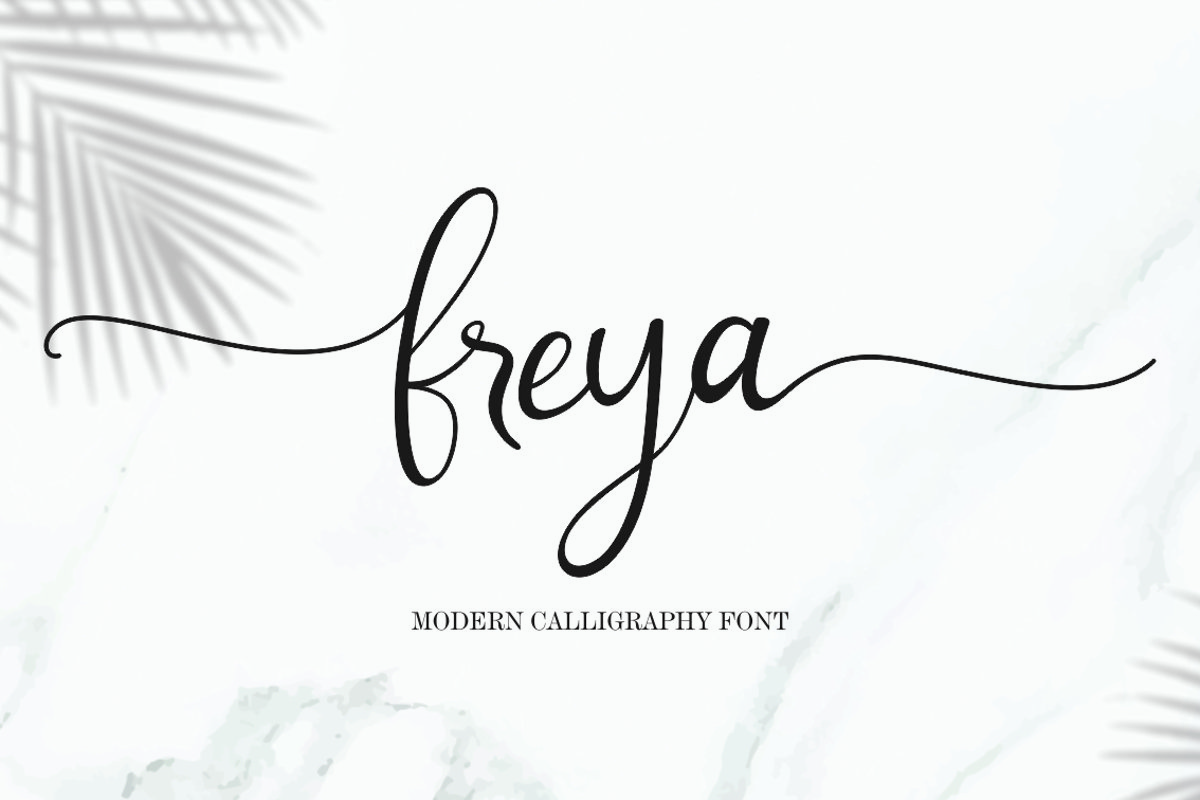
It's name Freya.
Freya a new natural script with a handwritten and script style make this font looks elegant, natural, stylish .
Freya would perfect for invitation, logos & branding , photography, advertisements, watermark, social media posts, product packaging, product designs, label, wedding designs, stationery, special events or anything that need handwriting taste.
Ligature, Stylistic alternate & Contextual Alternate